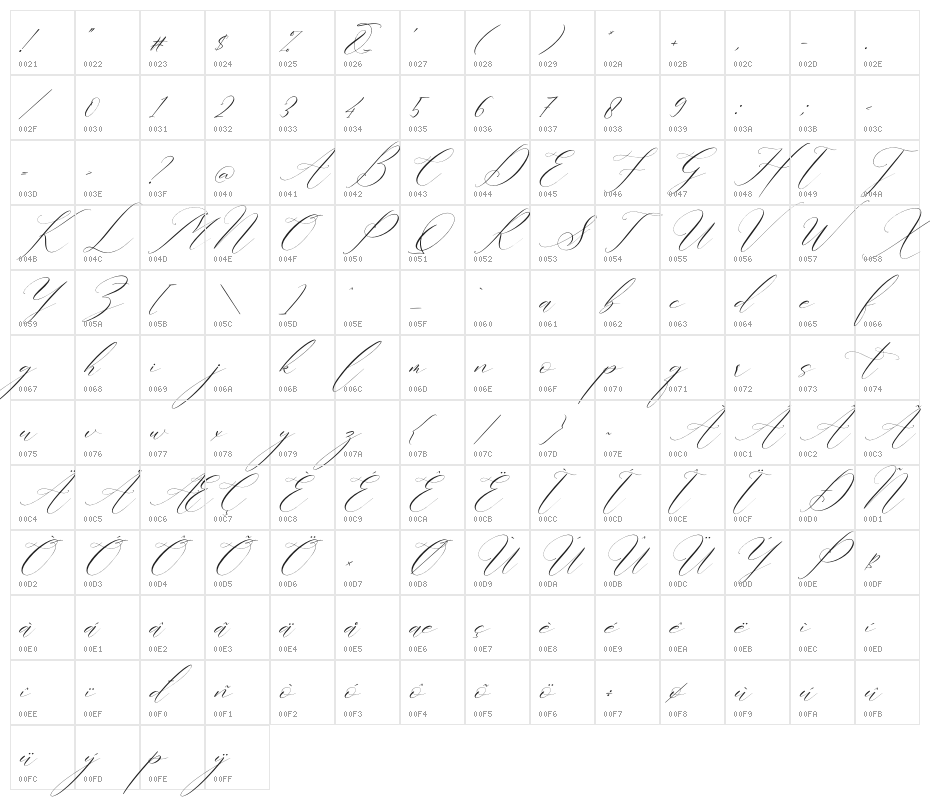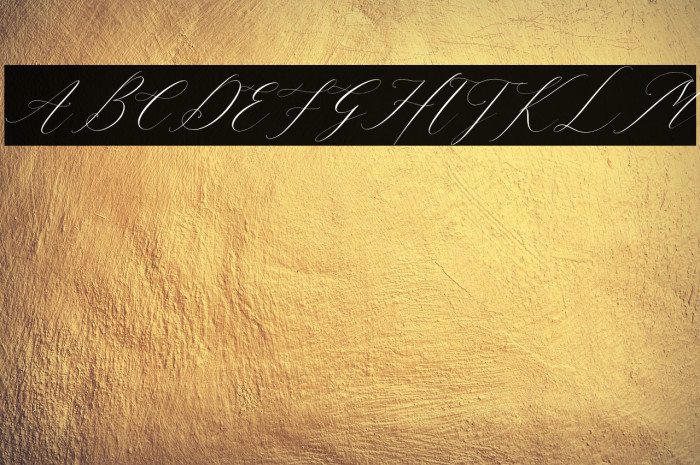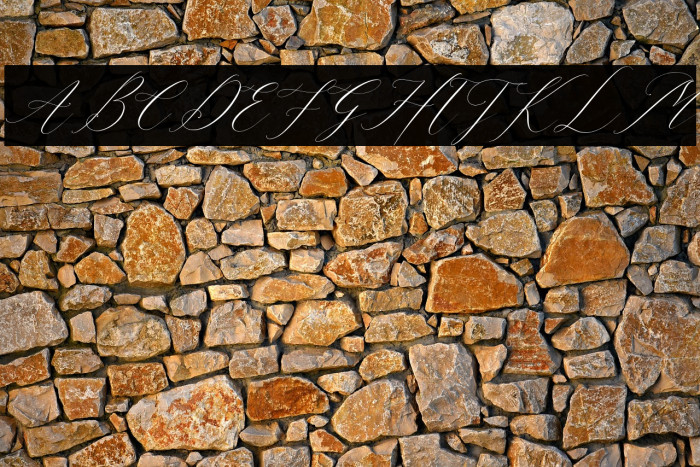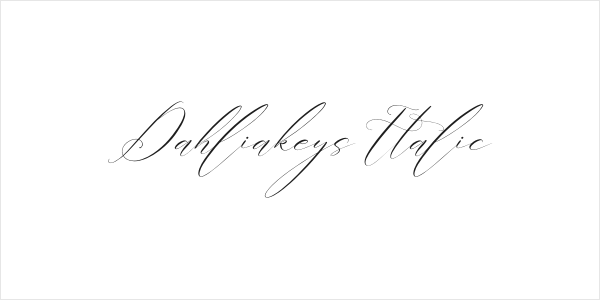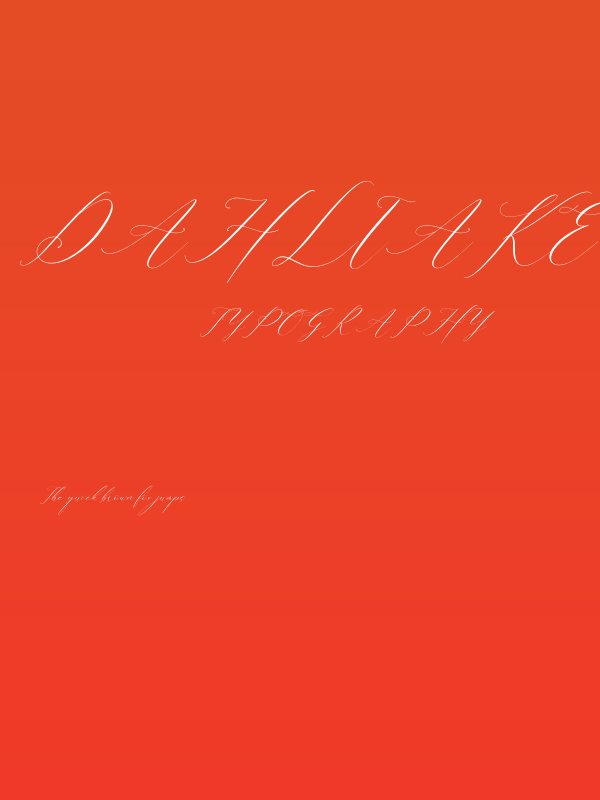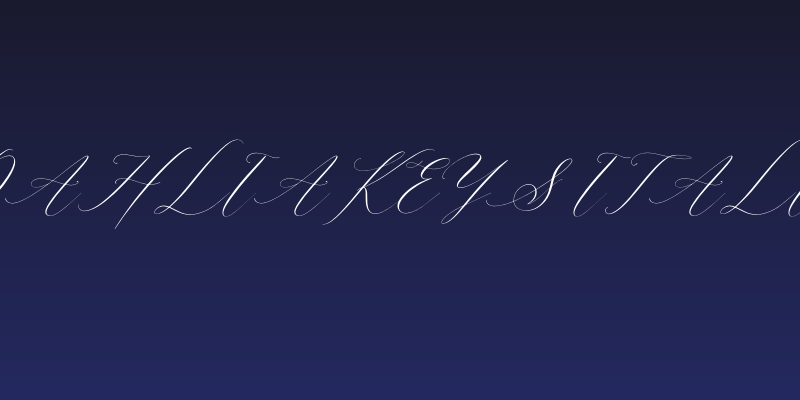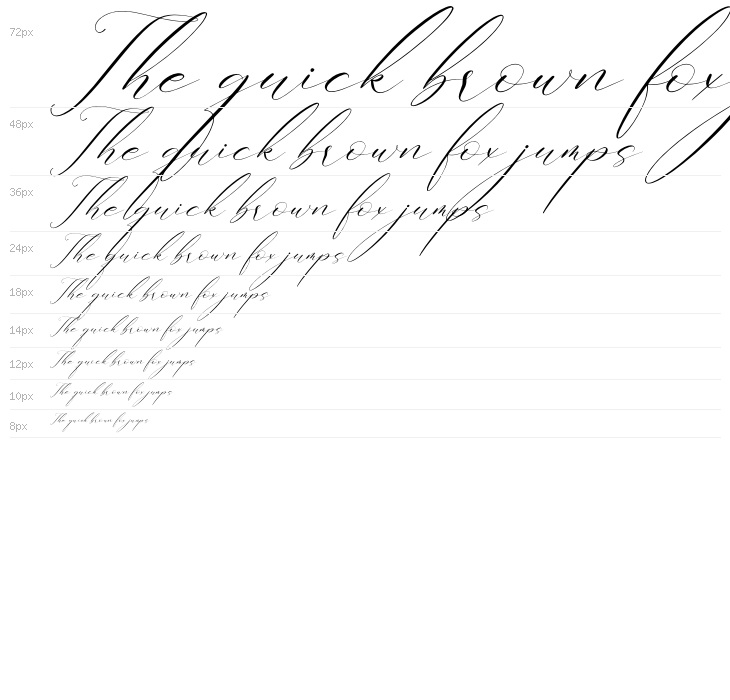
Dahliakeys Italic Font
Dahliakeys Italic Description
This elegant script font features a flowing, cursive style with delicate, sweeping strokes that convey a sense of sophistication and grace. The letters are intricately designed with a high degree of flourish, making it ideal for formal invitations, branding, or any project that requires a touch of elegance. The uppercase letters are particularly ornate, with extended loops and curves, while the lowercase letters maintain a consistent, fluid motion. Numbers and special characters are equally stylized, ensuring a cohesive look across all text elements. The font's italic nature adds to its dynamic appearance, enhancing the overall aesthetic appeal.
| Overall Style | Elegant, Sophisticated |
| Use Case | Invitations, Branding, Logos |
| Proposed Projects | Ideal for wedding invitations, luxury branding, elegant logos, and high-end product packaging. |